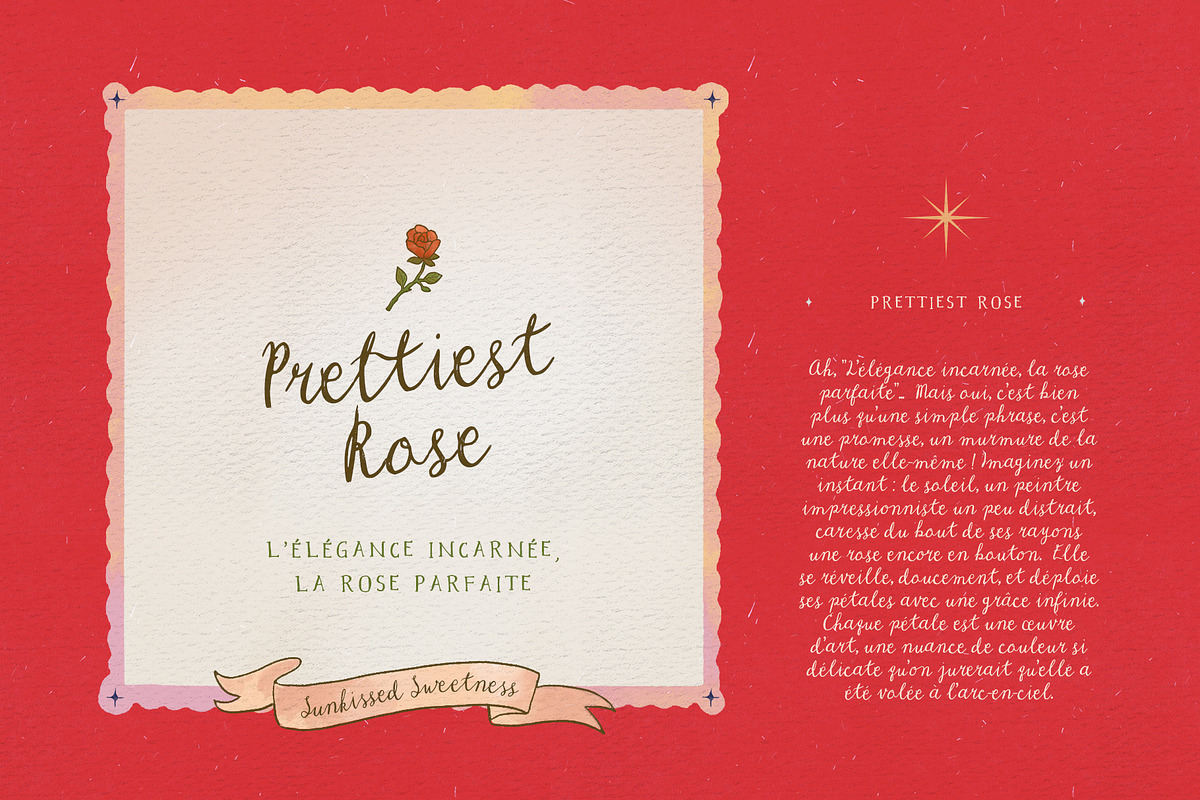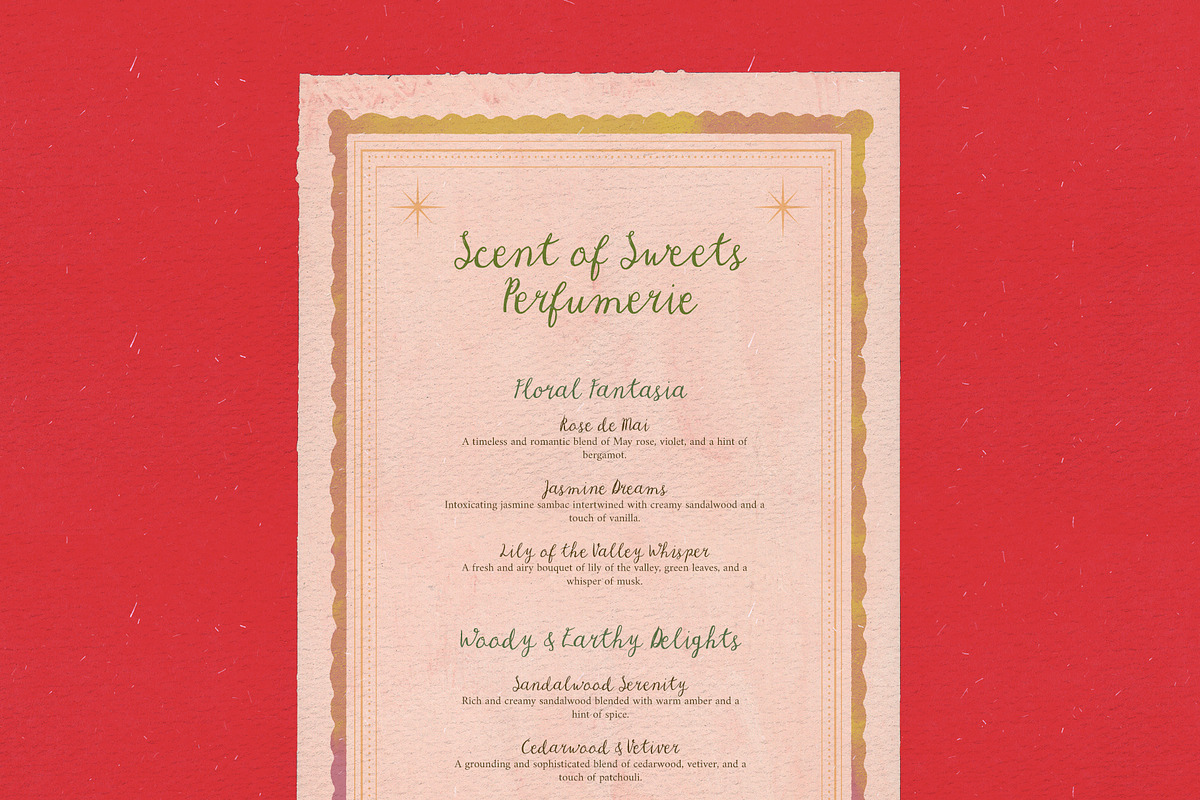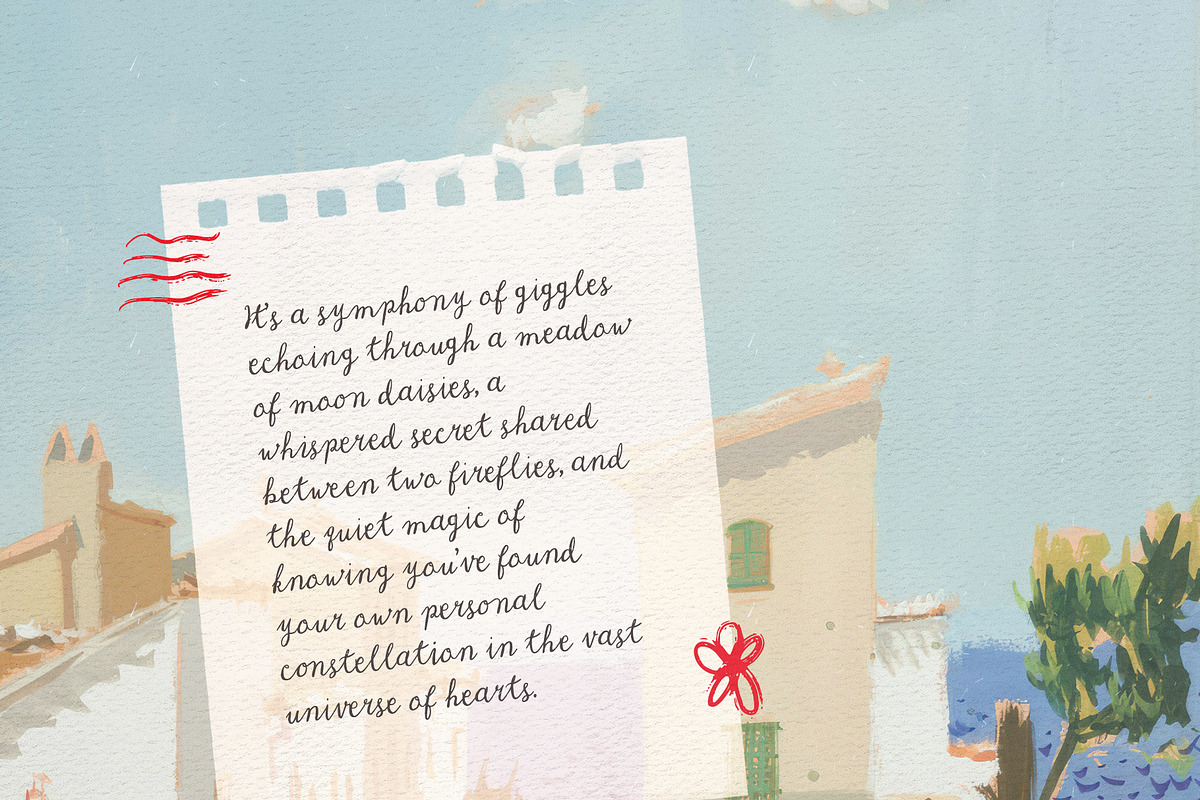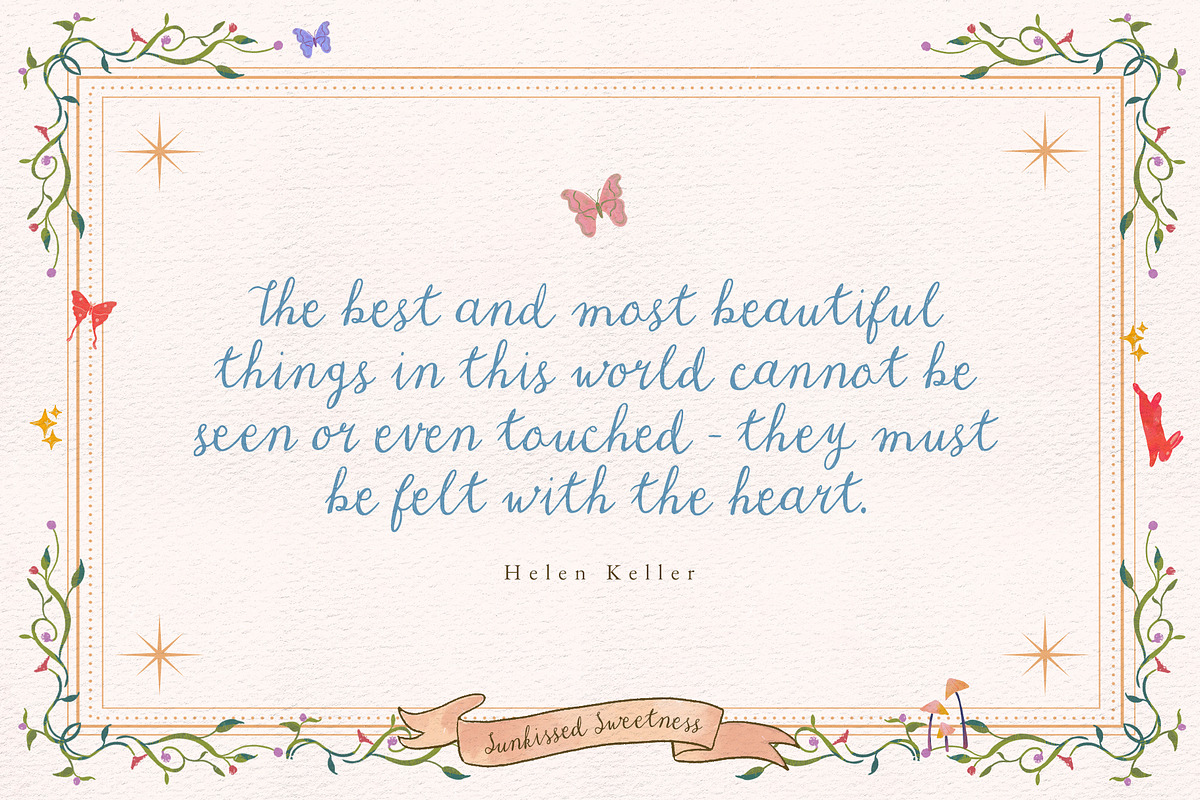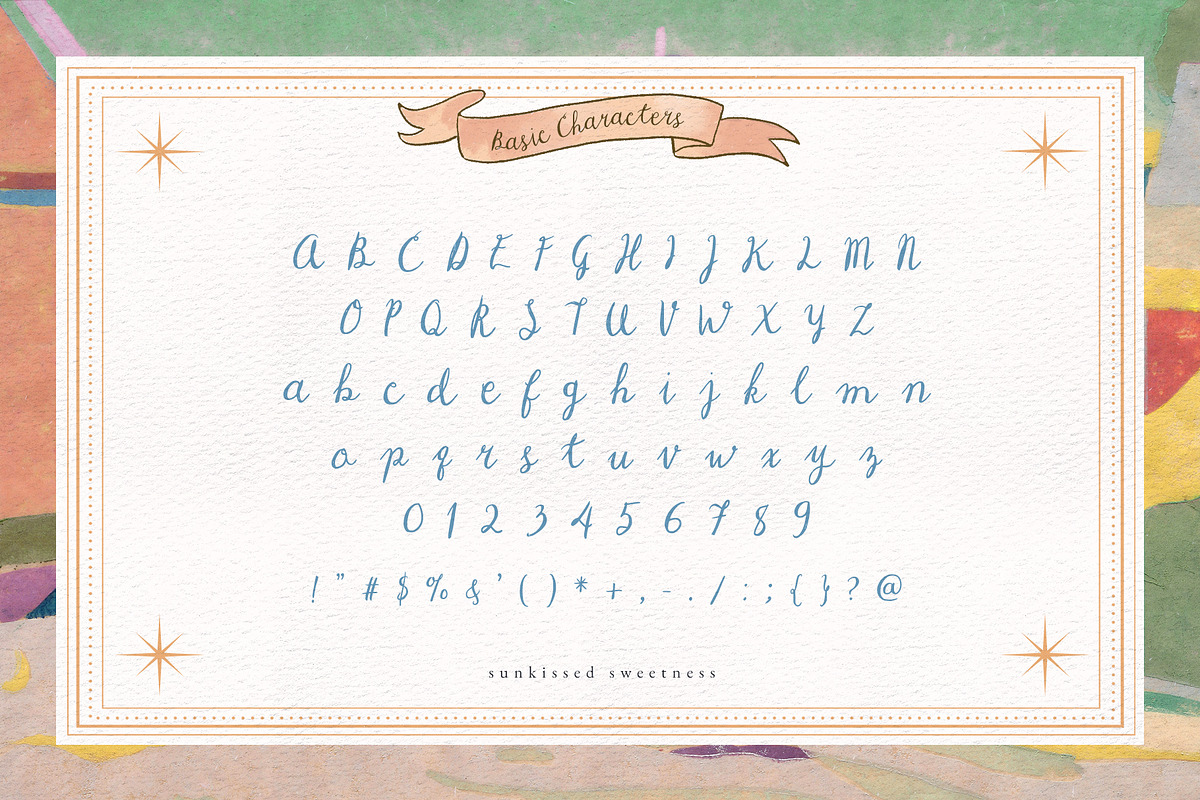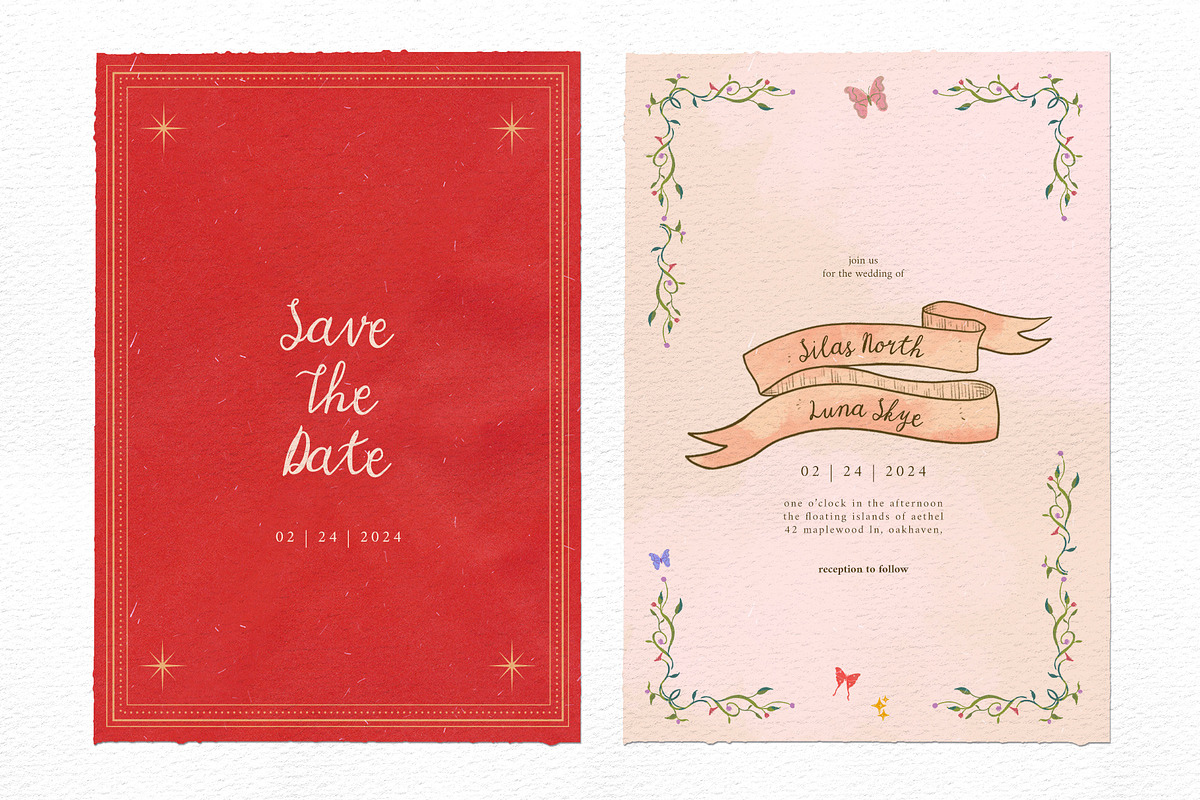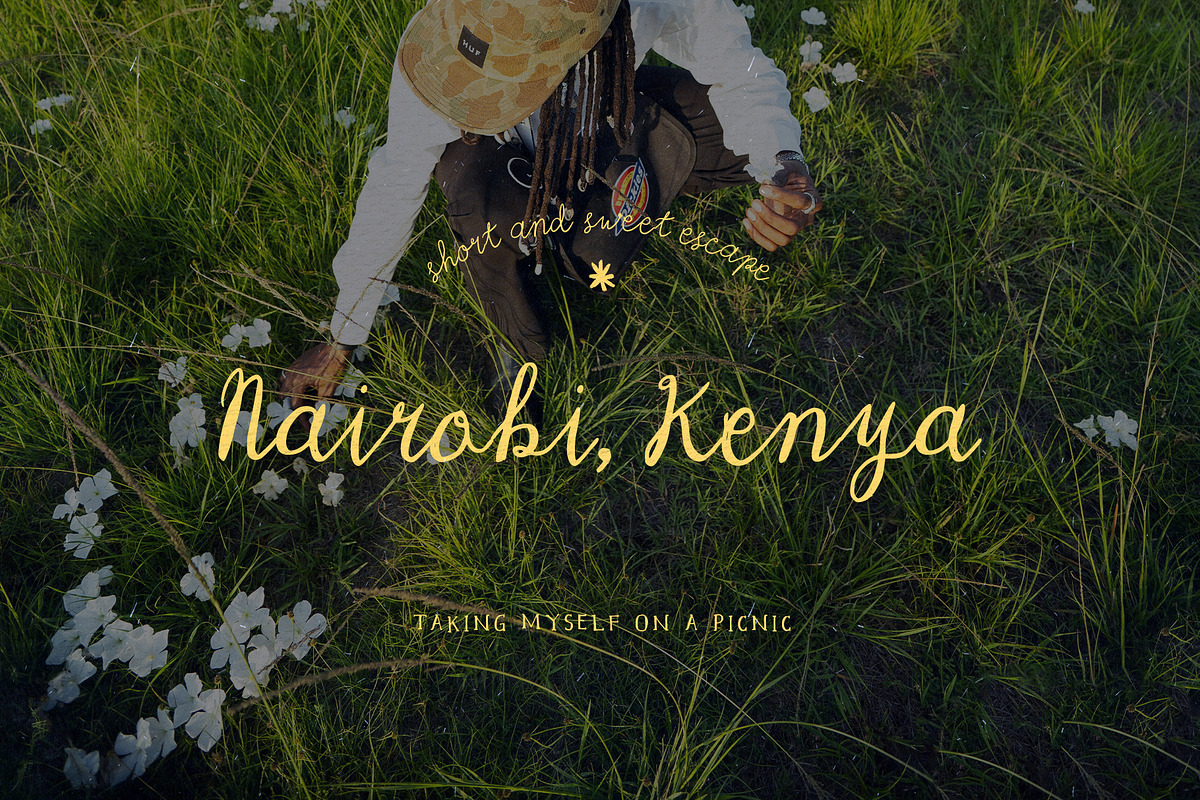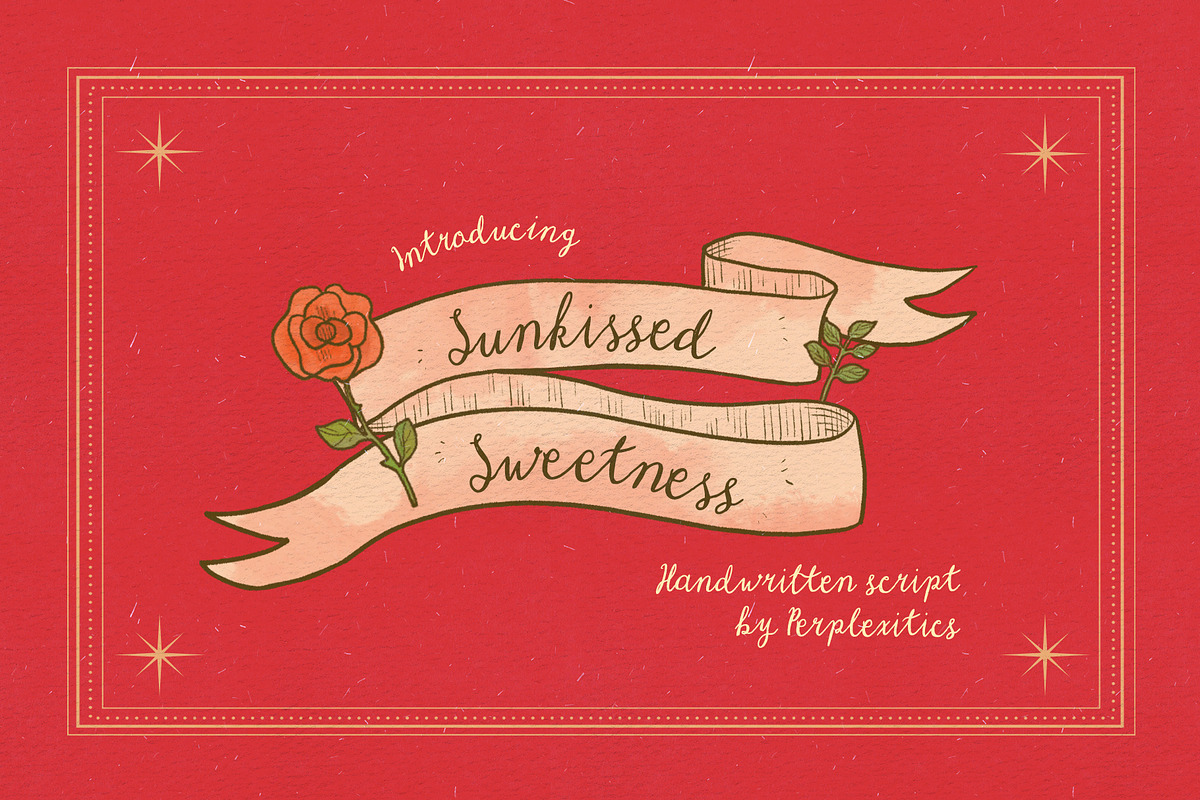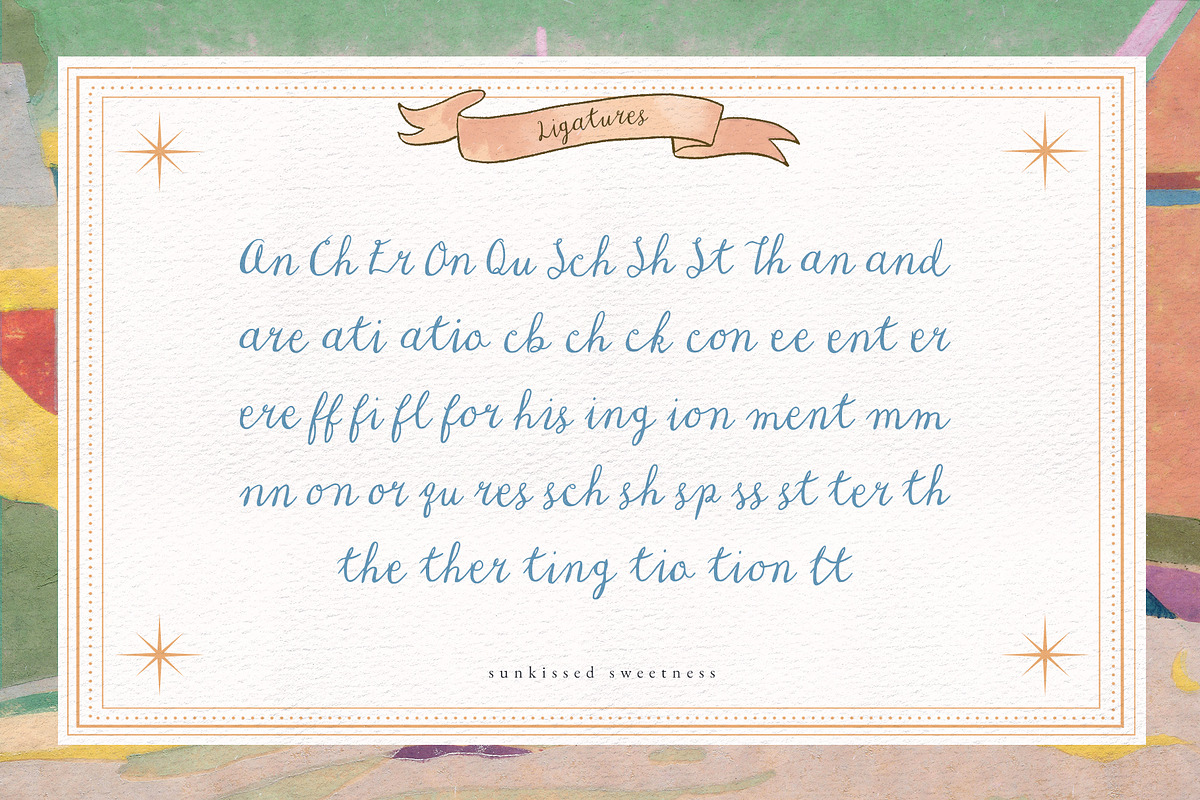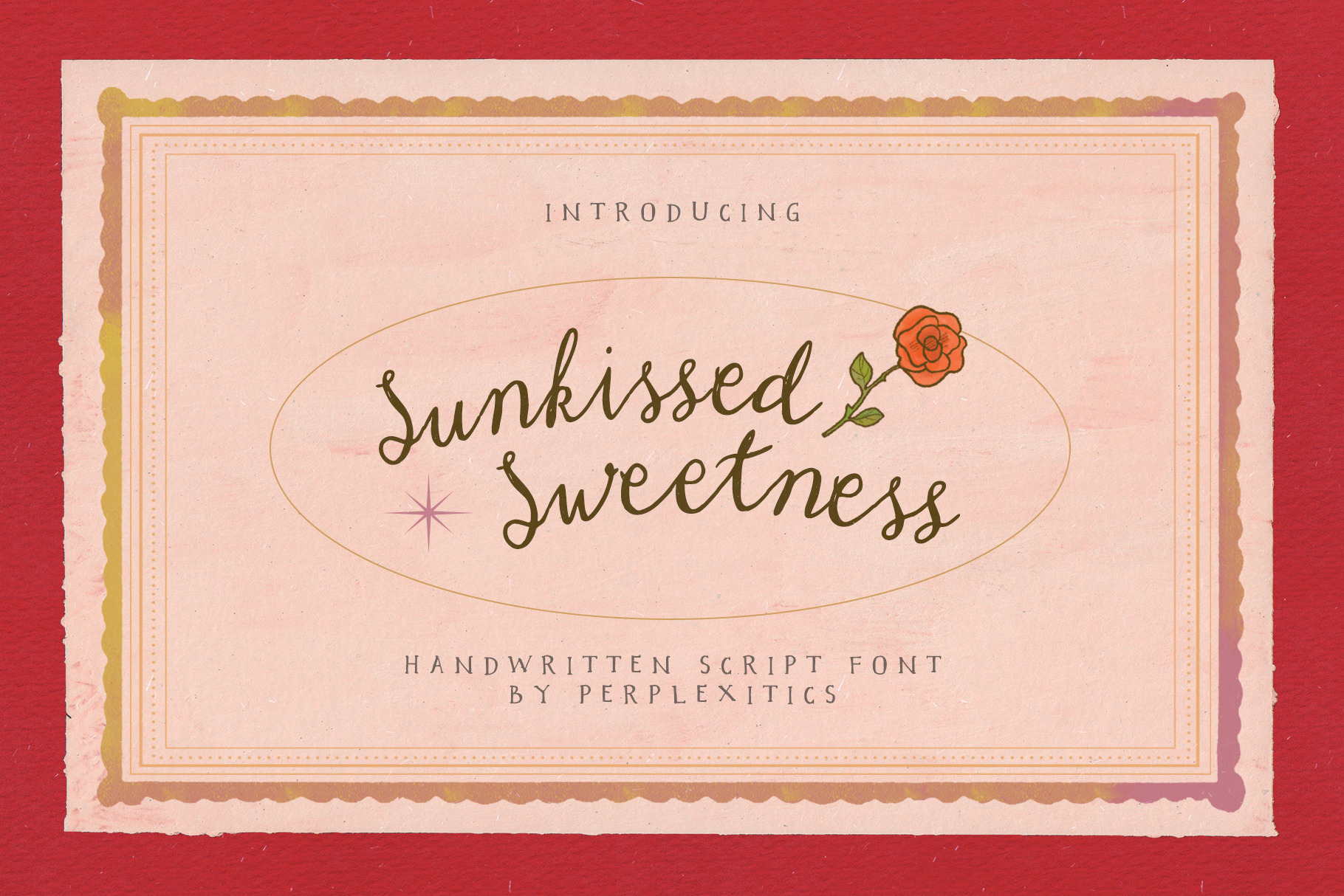
Sunkissed Sweetness Script Font
Sunkissed Sweetness is a handwritten script font that evokes cheerful and inviting, with warmth, joy, and carefree spirit. Sunkissed Sweetness Font is packed with everything you need, including uppercase and lowercase letters, numbers, and punctuation. Multilingual support.